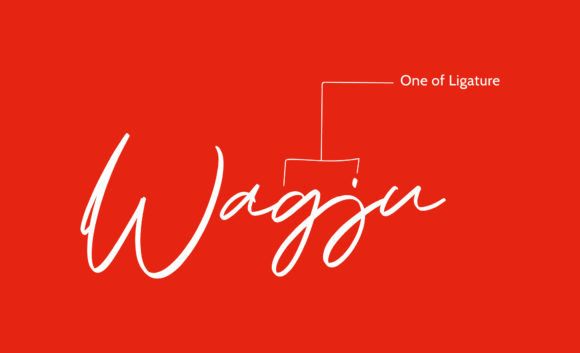
HomeScript FontsAtthaka Font Script Fonts Atthaka Font FacebookXPinterestWhatsApp Atthaka Font Poster 2 About Atthaka Font Atthaka is a lighthearted script with an authentic feel. Use it to make any design project stand out. DOWNLOAD ON CREATIVE FABRICAThis font is sold and delivered by Creative Fabrica. Font Canyon may earn a commission if you buy through this link. People also explored Guhytha Font Thompt Font Adiline Font Alhena Font Kaeshad Latimojong Font Sweetheart Monogram Font Tuesday Chocolate Sprinkle Font 320 0 TagsAtthaka Font Previous articleFeedback FontNext articleMc Hambrug Font LEAVE A REPLY Cancel reply Comment: Please enter your comment! Name:* Please enter your name here Email:* You have entered an incorrect email address! Please enter your email address here Website: Save my name, email, and website in this browser for the next time I comment. Personal Use Free Splatter Splash Personal Use Free Read more about this font Frozdotre Personal Use Free Read more about this font Elliane Personal Use Free Read more about this font Carved Wood Personal Use Free Read more about this font BLOG Where to Buy American Fonts Online in 2024 Where to Buy American Fonts Online: The Ultimate Guide for 2024 Looking for the perfect American font to elevate your design projects? You're in the... Top 7 Google Fonts Alternatives for Faster and Privacy-Friendly Web Design (2025) Elegant Wedding Invitation Fonts – Handwritten & Script Fonts 5 Fonts That Will Dominate Design Trends in 2026